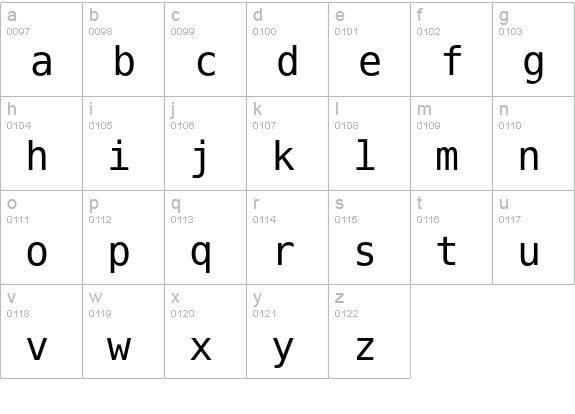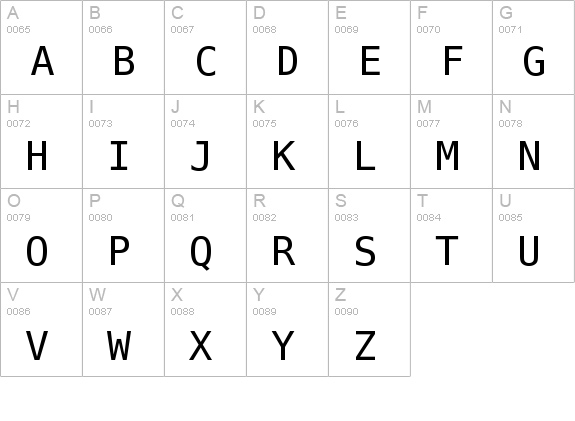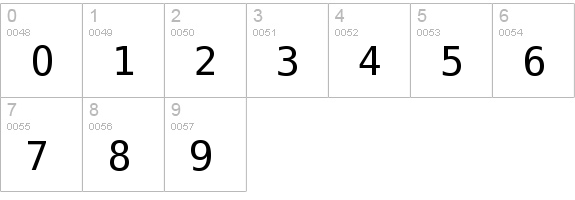
Prima Sans Mono is a versatile and modern monospaced font that offers a clean and sleek design for all your typographic needs. With its even spacing and crisp lines, this font is perfect for coding, programming, and any other text that requires a consistent and professional look. The geometric shapes and minimalistic style of Prima Sans Mono make it easy to read on screens of all sizes, ensuring readability and clarity in any context. What's more, Prima Sans Mono is available for free download at FontsMarket.com, making it accessible to everyone who wants to enhance their projects with this stylish typeface. Whether you're a designer, developer, or simply a typography enthusiast, Prima Sans Mono is a fantastic addition to your font collection. Experience the versatility and elegance of this font today by downloading it for free from FontsMarket.com.